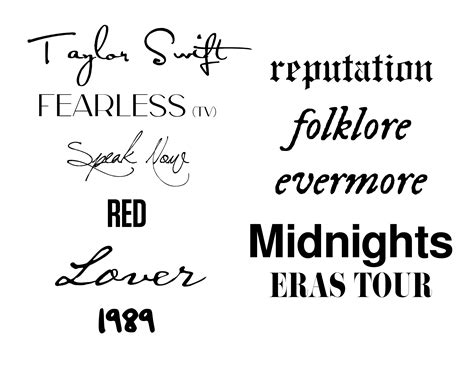
Taylor Swift's Iconic Album Fonts
Taylor Swift’s Iconic Album Fonts
Hey Swifties, let’s dive deep into the visual world of our favorite pop icon, Taylor Swift! You guys know Taylor’s music is legendary, but have you ever stopped to really look at the fonts she uses for her album covers? It’s not just about pretty lettering, people; these fonts are a crucial part of her storytelling, setting the mood and hinting at the era we’re about to step into. From the sparkly, handwritten vibes of her early days to the bold, statement-making typography of her more recent works, the font choices are a masterclass in branding and artistic expression. We’re talking about how these specific typefaces help shape our perception of each album before we even hear a single note. It’s pretty wild when you think about it, right? This isn’t just about picking a font; it’s about crafting an entire aesthetic that resonates with the music and the narrative Taylor is weaving. Each album cover is like a visual prologue, and the font is often the very first word you read, setting the tone for the entire lyrical journey. Think about it – the font on Fearless just screams a certain kind of youthful, romantic energy that perfectly matches the songs, doesn’t it? And then you look at Reputation , and that jagged, almost newspaper-print-like font immediately signals a darker, more defiant chapter. It’s this attention to detail that makes the Taylor Swift brand so powerful and instantly recognizable. She understands that in the visual age, the way something looks is just as important as how it sounds, especially when you’re building a universe as rich and detailed as hers. So, grab your favorite album and let’s break down the font-astic details that make Taylor Swift’s album art so unforgettable. We’ll be exploring how these stylistic choices not only enhance the album’s theme but also contribute to the overall legacy of each record.
- Taylor Swift (Debut Album) Font: A Touch of Whimsy and Innocence
- Fearless Font: Embracing Fairytales and Romance
- Speak Now Font: Expressive and Handwritten Charm
- Red Font: Bold, Edgy, and Emotionally Charged
- 1989 Font: Retro Futurism and Pop Sophistication
- Reputation Font: Industrial, Edgy, and Powerful
- Lover Font: Pastel, Whimsical, and Romantic
- folklore Font: Ethereal, Dreamy, and Rustic
- evermore Font: A Continuation of Rustic Elegance
- Midnights Font: Cosmic, Futuristic, and Boldly Modern
Taylor Swift (Debut Album) Font: A Touch of Whimsy and Innocence
Alright guys, let’s kick things off with the OG, the album that started it all: Taylor Swift . The font used here is a beautiful example of script typography , specifically resembling something like Samantha or Zapfino . It’s delicate, flowing, and has this wonderfully handwritten feel to it. This choice was pure genius for her debut. Why? Because it perfectly captured the essence of a young, hopeful singer-songwriter pouring her heart out. It’s approachable, personal, and screams authenticity. Imagine if it had been some stark, blocky font – it would have completely missed the mark! This script font evokes a sense of personal journaling, like flipping through a diary filled with crushes, heartbreaks, and dreams. It’s intimate and inviting, drawing listeners into Taylor’s world with a gentle embrace. The slightly whimsical curves and loops give it a touch of youthful exuberance, reflecting the themes of young love and coming-of-age stories that dominate the album. It’s not overly polished or corporate; it feels raw and genuine, just like Taylor herself was at the beginning of her career. This font choice immediately established her as an artist who was sharing her personal experiences, making her relatable to millions of young fans. It’s the kind of font that makes you want to grab a pen and write your own song. The slightly varied thickness in the strokes also adds to the handmade quality, further emphasizing the personal touch. It’s a font that whispers stories rather than shouts them, creating a sense of wonder and anticipation for the tales within. This debut album’s font wasn’t just a stylistic choice; it was a deliberate strategy to connect with an audience on an emotional level, establishing a foundation of authenticity and vulnerability that would become a hallmark of her career. It’s a reminder that even in the early stages, Taylor understood the power of visual storytelling to complement her music. The choice here truly set the stage for the visual identity she would continue to build upon, album after album, always ensuring the typography was a perfect reflection of the music’s soul. It’s a font that still holds a special place in the hearts of many, symbolizing the start of an incredible journey.
Fearless Font: Embracing Fairytales and Romance
Moving on to Fearless , Taylor took us on a journey into fairytale romance, and the font totally delivered! The iconic Fearless font is a customized serif typeface that’s bold, elegant, and just a little bit dreamy. It’s often described as being similar to Trajan Pro or a modernized version of classic serif fonts, but with Taylor’s signature flair. What makes this font so special is its regal yet accessible quality. It feels like something you’d find on a royal decree or a classic love story novel. This choice perfectly encapsulates the album’s themes of young love, Cinderella-esque fantasies, and epic romantic ballads. The serifs are sharp and defined, giving it a sense of timelessness and grandeur, while the slight curves and flourishes add a touch of feminine grace. It’s strong enough to stand out, yet refined enough to convey the delicate emotions explored in songs like “Love Story” and “You Belong With Me.” The golden hue often associated with the Fearless era, combined with this majestic font, creates an unforgettable visual identity. It’s a font that evokes a sense of magic and destiny, making you believe in happily ever afters. The capitalization is also a key feature; the all-caps treatment gives it a powerful and declarative presence, reinforcing the bold declarations of love and courage found in the lyrics. It’s not a shy font; it’s one that confidently announces its presence, much like the unwavering emotions Taylor sings about. This typeface helped define the Fearless era, making it instantly recognizable and deeply associated with its romantic and adventurous spirit. It’s a font that doesn’t just sit on the cover; it embodies the fairytale. It’s sophisticated without being stuffy, classic without being old-fashioned. It was the perfect visual companion to an album that swept listeners off their feet and made them believe in the magic of first love and grand gestures. The font choice here was a brilliant move, solidifying Taylor’s ability to create cohesive artistic worlds that transcend music alone, and it remains one of the most beloved and iconic fonts in her discography, a true testament to its power and enduring appeal. It’s the visual equivalent of a tiara, sparkling and unforgettable.
Speak Now Font: Expressive and Handwritten Charm
Now, let’s talk about Speak Now . For this album, Taylor opted for a font that’s all about expressive handwriting , giving it a very personal and direct feel. It’s reminiscent of a bold brush script or a stylized handwritten font, possibly inspired by typefaces like Before the Rain or similar unique handwriting styles. The key here is its personality . It feels spontaneous, energetic, and almost like Taylor herself is writing a passionate message directly to you. This choice perfectly aligns with the album’s theme of speaking your truth, confessing feelings, and embracing bold, uninhibited moments. The strokes are dynamic, with varying thickness and a certain fluidity that conveys urgency and emotion. It’s less about formal elegance and more about raw, honest expression. You can almost feel the ink flowing onto the page as she scribbles down her thoughts. This font adds a layer of intimacy and authenticity, making the listener feel like they are privy to Taylor’s innermost thoughts and confessions. It’s the kind of font you’d use to jot down a heartfelt note or a spontaneous declaration. The slightly imperfect, organic nature of the lettering reinforces the idea that these are genuine, unfiltered emotions. It’s a font that’s both playful and serious, reflecting the diverse emotional landscape of the album, which ranges from defiant anthems to vulnerable confessions. The Speak Now font doesn’t just sit there; it performs . It’s active, alive, and full of character. It’s a visual representation of Taylor’s journey into becoming more vocally assertive in her songwriting, encouraging listeners to do the same. This font choice was instrumental in defining the Speak Now era as one of bold self-expression and fearless communication. It’s a font that feels both grounded and soaring, much like the lyrical content itself. It’s a perfect example of how typography can amplify the emotional resonance of music, making the visual experience as impactful as the auditory one. It’s a font that encourages you to embrace your own voice and share your story, loud and clear. Truly a font that makes you want to grab the mic and speak now ! It’s the perfect blend of artistic flair and personal touch, making it a standout in her album art evolution.
Red Font: Bold, Edgy, and Emotionally Charged
Get ready for a major shift with Red ! The font here is a complete departure, guys. We’re talking about a bold, sans-serif typeface with a distinct edgy feel, often compared to fonts like Impact or a heavily stylized Bebas Neue . This font is strong , unapologetic , and carries a palpable sense of intensity. The thick, blocky letters and sharp angles immediately signal a more mature and complex emotional state than previous albums. Think of it as the visual equivalent of a passionate, sometimes painful, love affair. The starkness of the sans-serif design, coupled with its sheer boldness, reflects the album’s exploration of intense emotions – the exhilarating highs and devastating lows of love. It’s a font that doesn’t mess around; it commands attention. The all-caps treatment further amplifies its power, making each letter feel like a definitive statement. This choice perfectly mirrors the album’s sonic palette, which experimented with rock influences and a broader range of sounds, moving away from the purely country-pop roots. The font is almost aggressive in its presence, hinting at the tumultuous emotional journey Taylor takes listeners on. It’s the visual representation of that “all too well” kind of heartbreak, intense and unforgettable. The contrast between the stark, bold lettering and the often delicate or emotional lyrical content creates a compelling tension, showcasing the multifaceted nature of the relationships and feelings explored. It’s a font that suggests a story that’s both powerful and deeply personal, a narrative told with conviction and raw emotion. The Red font is a masterclass in how typography can convey a narrative arc and emotional weight. It’s the perfect visual anchor for an album that’s known for its emotional depth and sonic experimentation. It’s a font that screams confidence, even in its vulnerability, and it undeniably helped define the Red era as a pivotal moment in Taylor Swift’s artistic evolution. It’s a font that’s both a warning and an invitation, drawing you into the intensity of the experience. It’s a look that’s hard to ignore and impossible to forget, much like the album itself.
1989 Font: Retro Futurism and Pop Sophistication
Welcome to the synth-pop wonderland of 1989 ! Taylor officially became a pop superstar, and the font reflects that glorious transformation. The typeface here is a modern, geometric sans-serif , often seen as a nod to 1980s design aesthetics but with a clean, contemporary twist. Think of fonts like Futura or a sleeker version of Avant Garde Gothic . It’s sharp, clean, and has this cool, retro-futuristic vibe. This choice perfectly aligns with the album’s glossy, synth-driven sound and its exploration of city life and new beginnings. The font is sophisticated, stylish, and unmistakably pop. It exudes confidence and a sense of polished cool. The clear, legible letters give it an accessible yet elevated feel, like something you’d see on high-fashion magazine covers or chic brand logos from that era, but updated for today. It’s a font that feels both nostalgic and forward-looking, capturing the essence of the album’s blend of 80s influences and modern production. The clean lines and balanced proportions give it a sense of order and control, contrasting slightly with the emotional intensity of Red , but still possessing a powerful presence. It’s a font that suggests optimism, adventure, and the thrill of the unknown. The stark black and white often used with this font on the album art further enhance its graphic impact, making it feel modern and iconic. The 1989 font is a key element in establishing the album’s distinct visual identity as a clean, sophisticated pop masterpiece. It’s a font that radiates charisma and ambition, perfectly mirroring Taylor’s bold leap into a new musical genre and her embrace of a global pop sound. It’s chic, it’s memorable, and it perfectly encapsulates the bright, energetic spirit of the album. It’s the font equivalent of a perfectly timed synth riff – crisp, catchy, and undeniably effective. It’s a testament to Taylor’s evolving aesthetic and her ability to consistently nail the visual representation of her music, making 1989 an era defined by its sharp, stylish, and unforgettable look.
Reputation Font: Industrial, Edgy, and Powerful
Now, buckle up, because Reputation is where things get really intense visually. The font for Reputation is one of the most distinct and talked-about in Taylor’s discography. It’s a custom, jagged, distressed sans-serif typeface that looks almost like newspaper print that’s been torn and reassembled, or perhaps a stencil font that’s been through a war. Think of fonts that are deliberately broken and industrial, evoking a gritty, raw, and rebellious energy. This font is sharp , angular , and carries a powerful sense of defiance. It perfectly mirrors the album’s themes of reclaiming narrative, dealing with public scrutiny, and embracing a darker, more assertive persona. The distressed texture and broken letterforms communicate a sense of resilience and survival. It’s not a pretty font; it’s a statement font. It screams “I’m here, I’m flawed, and I’m fighting back.” The choice to make it so stark and almost menacing visually underscores the album’s shift in tone and Taylor’s willingness to confront her critics head-on. The often monochromatic color schemes associated with the Reputation era, combined with this aggressive typography, create an atmosphere that is both intimidating and captivating. It’s a font that tells a story of battles fought and won, of scars and resilience. It embodies the idea that even when broken, something can still be incredibly strong and impactful. This typeface is a visual manifestation of Taylor building her own empire amidst the chaos and controversy. It’s the perfect visual counterpoint to the sometimes softer, more vulnerable lyrical content, showcasing the duality of her strength and sensitivity. The Reputation font is iconic for its sheer boldness and its ability to embody the raw, unapologetic spirit of the album. It’s a font that doesn’t just sit on the cover; it is the cover, a powerful symbol of reclaiming one’s narrative. It’s a look that’s both terrifying and exhilarating, a true testament to the power of visual storytelling in defining an artist’s era. It’s the font equivalent of a snake shedding its skin – a symbol of transformation and survival.
Lover Font: Pastel, Whimsical, and Romantic
Let’s switch gears completely and dive into the vibrant, pastel world of Lover ! After the dark intensity of Reputation , Lover is a breath of fresh, bubbly air, and the font totally captures that. The typeface used here is a clean, modern sans-serif with a playful, slightly rounded feel , often incorporating whimsical elements and pastel color palettes. Think of fonts that are inspired by modern signage or contemporary graphic design, but with a softer, more romantic touch, perhaps similar to Proxima Nova Soft or clean, rounded geometric sans-serifs. The key here is its friendliness and optimism . The letters are clear, approachable, and have a gentle, almost childlike charm without being overly cutesy. This choice perfectly reflects the album’s overarching themes of love in all its forms, joy, and embracing a brighter, more hopeful future. The rounded edges give it a softness that’s incredibly inviting, making the album feel accessible and full of warmth. It’s the visual equivalent of a sweet embrace or a heartfelt compliment. The use of vibrant pastel colors – pinks, blues, yellows – alongside this font further amplifies its cheerful and romantic persona. It feels like a celebration, a party invitation, or a love letter written in sunshine. This font is all about positivity, lightheartedness, and the pure joy of connection. It stands in stark contrast to the aggressive, distressed font of Reputation , signifying a deliberate shift towards a more open, vulnerable, and celebratory artistic space. The Lover font is clean, modern, and exudes a sense of effortless cool combined with genuine warmth. It’s a font that makes you smile, that makes you feel good, and that perfectly encapsulates the album’s mission to celebrate love and happiness in its purest forms. It’s the visual manifestation of Taylor embracing her joy and sharing it with the world, making it an iconic representation of an era defined by vibrant colors and heartfelt anthems. It’s the font equivalent of a perfectly crafted pastel macaroon – delightful, charming, and utterly sweet.
folklore Font: Ethereal, Dreamy, and Rustic
Prepare to be transported to a whimsical forest with folklore ! This album marked a significant artistic pivot, and the font choice is absolutely central to its enchanted, introspective mood. The typeface here is a delicate, ethereal serif font , often described as having a vintage or rustic feel, reminiscent of classic literature or handwritten notes from a bygone era. Think of fonts like Garamond or Times New Roman but with a softer, more organic, and slightly more whimsical touch, perhaps with subtle variations in stroke width that mimic hand-drawing. The key elements are its elegance, subtlety, and natural flow . It evokes a sense of quiet contemplation, storytelling, and a connection to nature. The serifs are graceful, and the overall impression is one of gentle sophistication and timeless artistry. This choice perfectly aligns with the album’s indie-folk sound, its narrative-driven songwriting, and its escape into fictional worlds and intimate reflections. It feels like the font was plucked from the pages of a well-loved novel or a treasured keepsake. The simplicity and understated beauty of the font contribute to the album’s intimate and deeply personal atmosphere. It’s a font that doesn’t demand attention but rather draws you in with its quiet charm and storytelling potential. The muted color palettes often associated with folklore , combined with this refined typography, create a cohesive aesthetic that feels both melancholic and comforting. It’s a font that whispers secrets and shares intimate thoughts, perfectly matching the album’s exploration of complex characters and emotional landscapes. The folklore font is a masterclass in conveying mood through typography. It’s the visual embodiment of a cozy cabin, a misty forest, or a late-night conversation. It represents a return to lyrical roots and a deep dive into the art of storytelling, making it an absolutely essential part of the album’s iconic identity. It’s a font that feels both classic and contemporary, finding beauty in simplicity and depth in its understated elegance. It’s the font equivalent of a worn, leather-bound book, holding countless stories within its pages. It’s a profound and beautiful choice that underscores the artistic maturity and storytelling prowess of the folklore era.
evermore Font: A Continuation of Rustic Elegance
Following the surprise success of folklore , Taylor gifted us evermore , and the font continues that magical, storytelling vibe, albeit with subtle distinctions. The typeface for evermore is another beautiful serif font , maintaining that sense of rustic elegance and literary feel, but often perceived as slightly more refined or perhaps a bit more grounded than its predecessor. It’s still in the realm of classic, well-crafted serifs, possibly drawing inspiration from fonts like Garamond or Baskerville , but with a subtle warmth and a sense of enduring charm. The emphasis remains on storytelling, natural beauty, and timeless themes . While folklore felt like stepping into a mystical forest, evermore feels like settling into a cozy, historical home, filled with stories passed down through generations. The letters are elegant and readable, exuding a quiet confidence and a sense of enduring artistic quality. This font choice perfectly complements the album’s exploration of complex narratives, character studies, and the ebb and flow of life and relationships. It’s a font that feels both grounded and poetic, capable of conveying deep emotion and intricate storytelling with grace. The connection to the folklore aesthetic is clear, reinforcing the idea of a shared universe and a consistent artistic vision. However, evermore ’s font often feels a touch more deliberate, perhaps less ethereal and more rooted in narrative progression. The color palettes associated with evermore – often featuring deeper greens, browns, and autumnal tones – further enhance this feeling of rich, grounded storytelling. The evermore font is a beautiful continuation of the folklore legacy, offering a sense of warmth, depth, and enduring artistry. It’s a font that invites you to sit down, listen closely, and immerse yourself in the rich tapestry of stories being told. It represents a mature and confident artistic statement, solidifying the indie-folk, storytelling direction. It’s the font equivalent of a beautifully aged oak tree, standing strong and rich with history. It’s a quiet triumph of typography, perfectly encapsulating the album’s enduring spirit and its profound lyrical depth. It proves that sometimes, the most powerful stories are told in the most elegant and understated ways.
Midnights Font: Cosmic, Futuristic, and Boldly Modern
And now, we arrive at Midnights , Taylor’s latest studio album, which brings a whole new cosmic dimension to her typography! The font used for Midnights is a sleek, futuristic, and bold sans-serif typeface . It often features sharp edges, unique ligatures, or a distinct geometric construction, giving it an almost otherworldly, space-age feel. Think of custom fonts designed for sci-fi films or cutting-edge tech brands, perhaps reminiscent of stylized versions of Orbitron or custom-designed letterforms with a strong sense of technological influence. The keywords here are cosmic, modern, and bold . This font choice is a brilliant visual representation of the album’s themes of sleepless nights, introspection, and venturing into the darker, more mysterious corners of one’s mind. The sharp, angular lines and the often metallic or shimmering color treatments associated with the Midnights era evoke a sense of the infinite, the unknown, and the digital age. It’s a font that feels both grounded in sleek design and soaring into the vastness of space. This typeface perfectly complements the album’s synth-heavy, nocturnal soundscape, creating a cohesive experience where visuals and audio intertwine seamlessly. It’s a font that commands attention, suggesting innovation, ambition, and a journey into the unexplored. The Midnights font is a departure from the more organic or distressed styles of previous albums, signaling a bold step into a new aesthetic territory – one that is polished, technologically advanced, and full of mystery. It represents Taylor’s continued evolution as an artist, unafraid to experiment with new sounds and visuals. The overall impression is one of sophisticated mystery and a journey through the dreamscape of the night. It’s a font that’s both captivating and intriguing, drawing the listener into the album’s unique atmosphere. It’s the font equivalent of a nebula – vast, mysterious, and breathtakingly beautiful. It perfectly encapsulates the album’s blend of personal reflection and grand, cosmic themes, making Midnights an era defined by its cutting-edge style and captivating allure. It’s a powerful statement of her artistic growth and her ability to continually reinvent her visual identity while staying true to her core storytelling prowess.